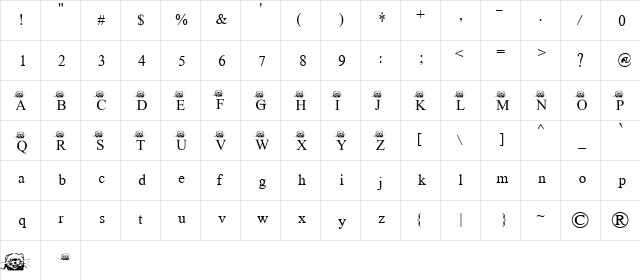
FerretsRTopsCapitals Regular
Design Context for FerretsRTopsCapitals Typeface
FerretsRTopsCapitals takes a measured approach to typography — its balanced proportions and neutral character make it a reliable workhorse for both digital and print work.